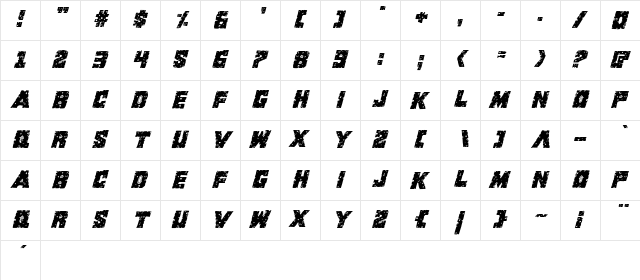
King Commando Riddled II Italic Italic
Design Context for King Commando Riddled II Italic Typeface
King Commando Riddled II Italic is a composed and adaptable typeface that performs quietly and consistently across a wide range of design contexts. The slanted form adds forward momentum and visual energy.
Pro Tip: Use King Commando Riddled II Italic for emphasis, pull quotes, and subheadings where its slanted energy can add rhythm to the layout.